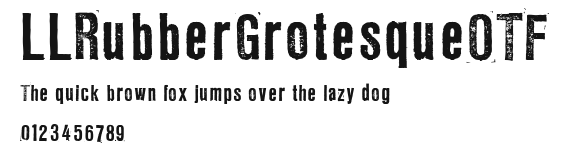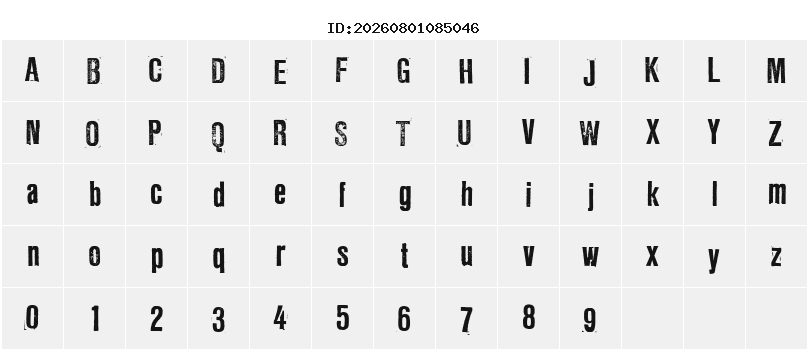
• Font Name: LLRubberGrotesqueOTF
• Full Font Name: LLRubberGrotesqueOTF
• Designer: Markus Schroeppel, Germany
About LLRubberGrotesqueOTF.ttf
LLRubberGrotesqueOTF.ttf is a modern, elegant sans-serif font designed for ultimate readability and visual harmony. Perfect for branding, headlines, web design, and print materials.